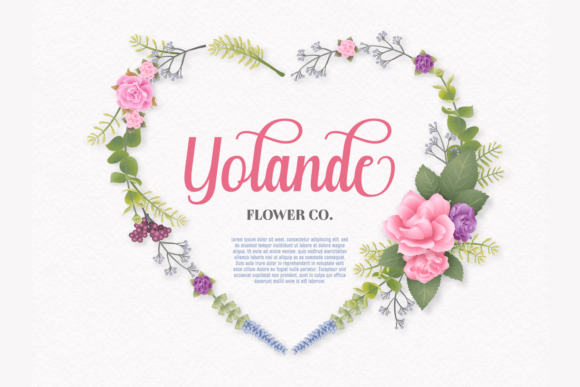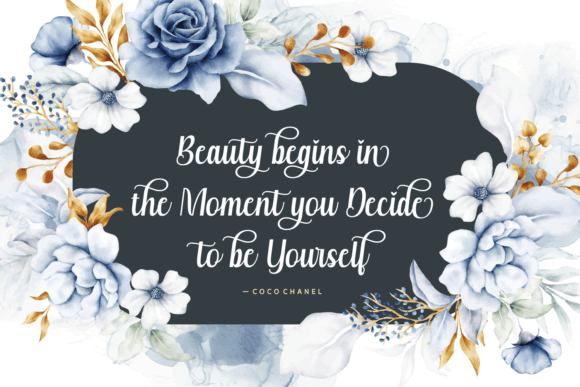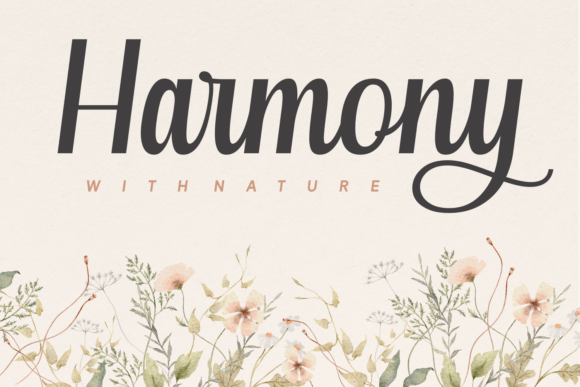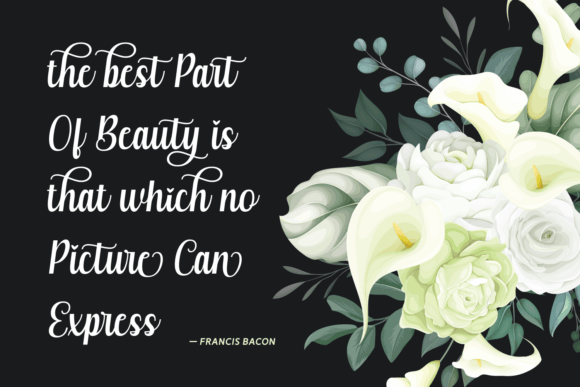
Introduction to Saylia Font Font
Fonts play a crucial role in design, and the Saylia Font font is a typeface that brings both character and versatility to any project. Whether you’re working on a branding project, a website, or a print design, the Saylia Font font offers a unique style that can elevate your work.
Saylia is a lovely script font.
Saylia is perfect for branding, social media graphics, invitations, logos, and everyday print materials Its modern, clean aesthetic suits both professional and creative contexts.
Key Features of Saylia Font Font
Why Choose Saylia Font Font?
The Saylia Font font is more than just a typeface – it’s a design tool that helps you communicate your message with style and clarity. Its unique character set and versatile design make it suitable for a wide range of applications, from elegant invitations to bold headlines.
With its carefully crafted letterforms and balanced proportions, the Saylia Font font ensures readability and visual appeal across all mediums.
What makes Saylia Font font special?
The Saylia Font font stands out with its unique design, exceptional readability, and versatility across various design applications.